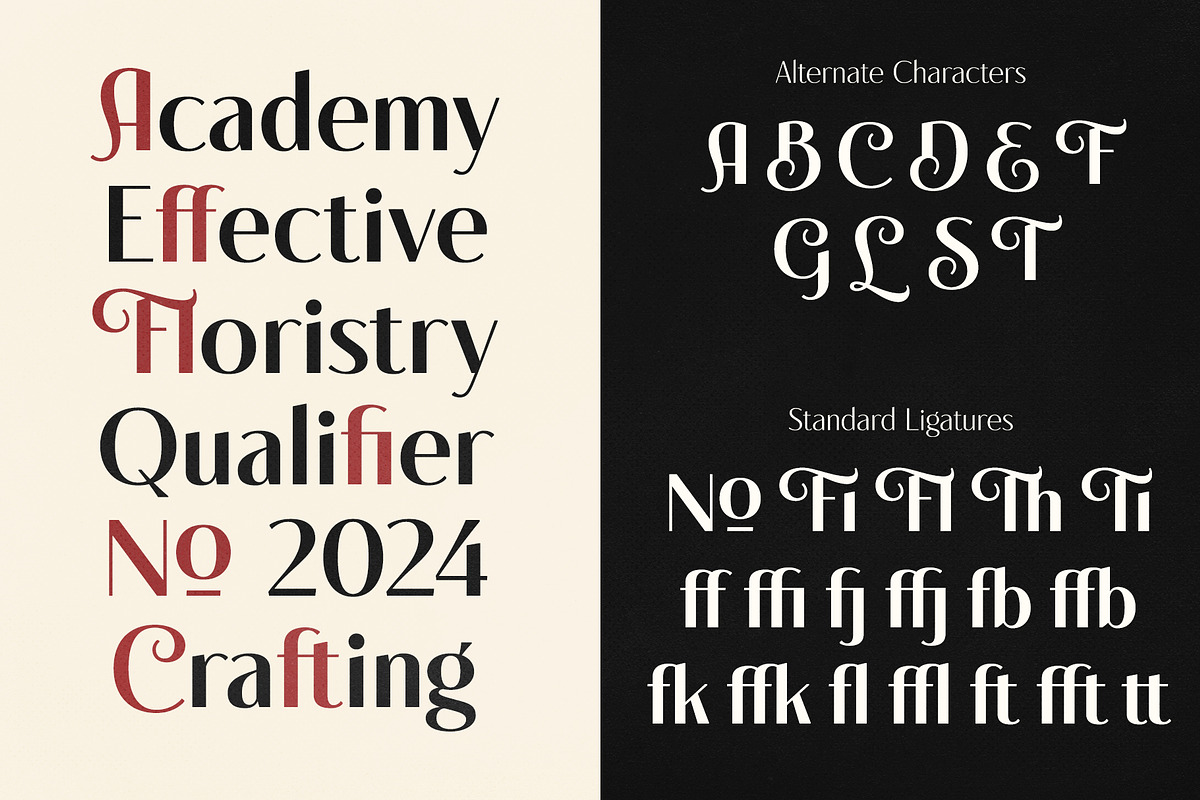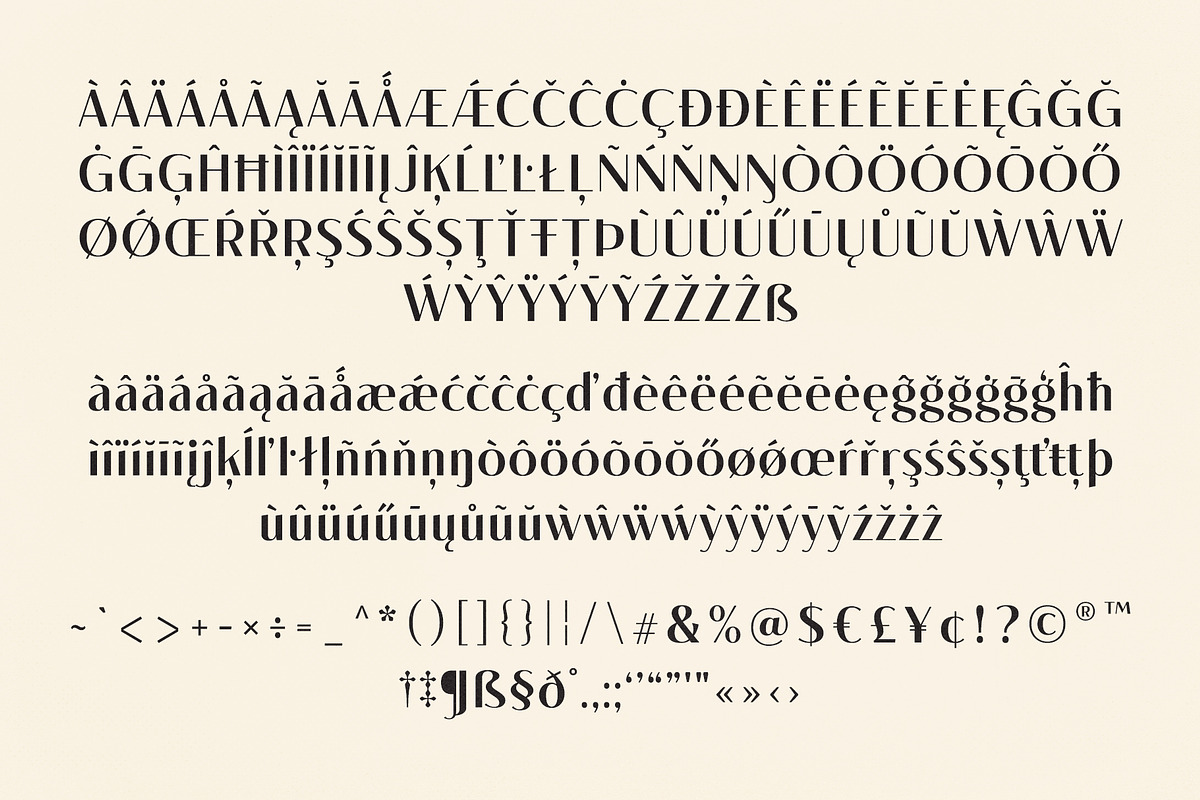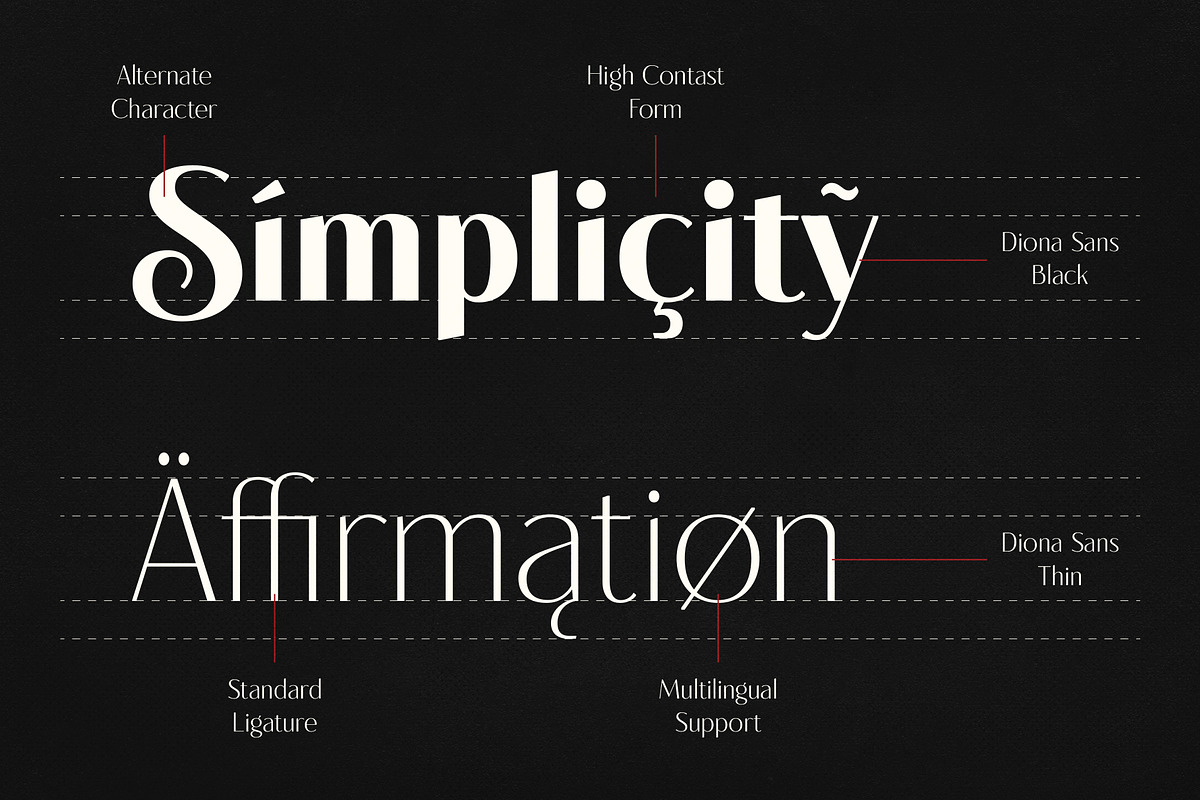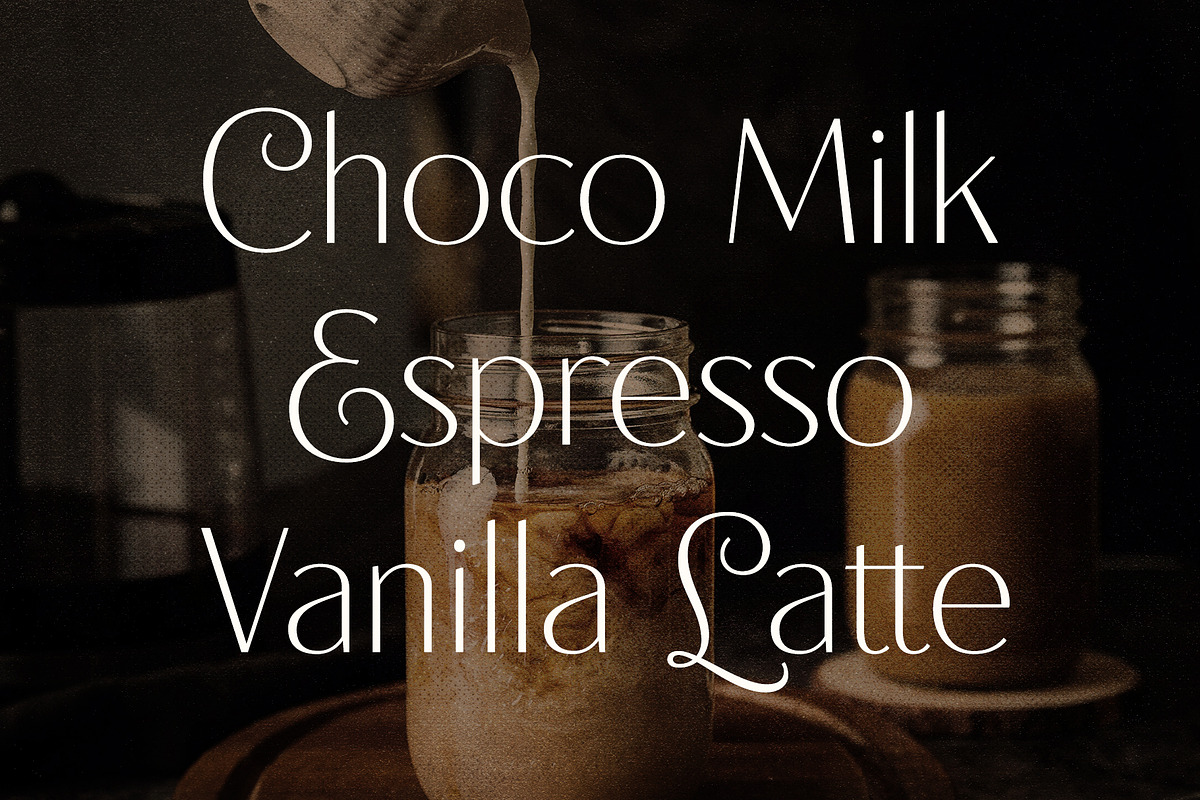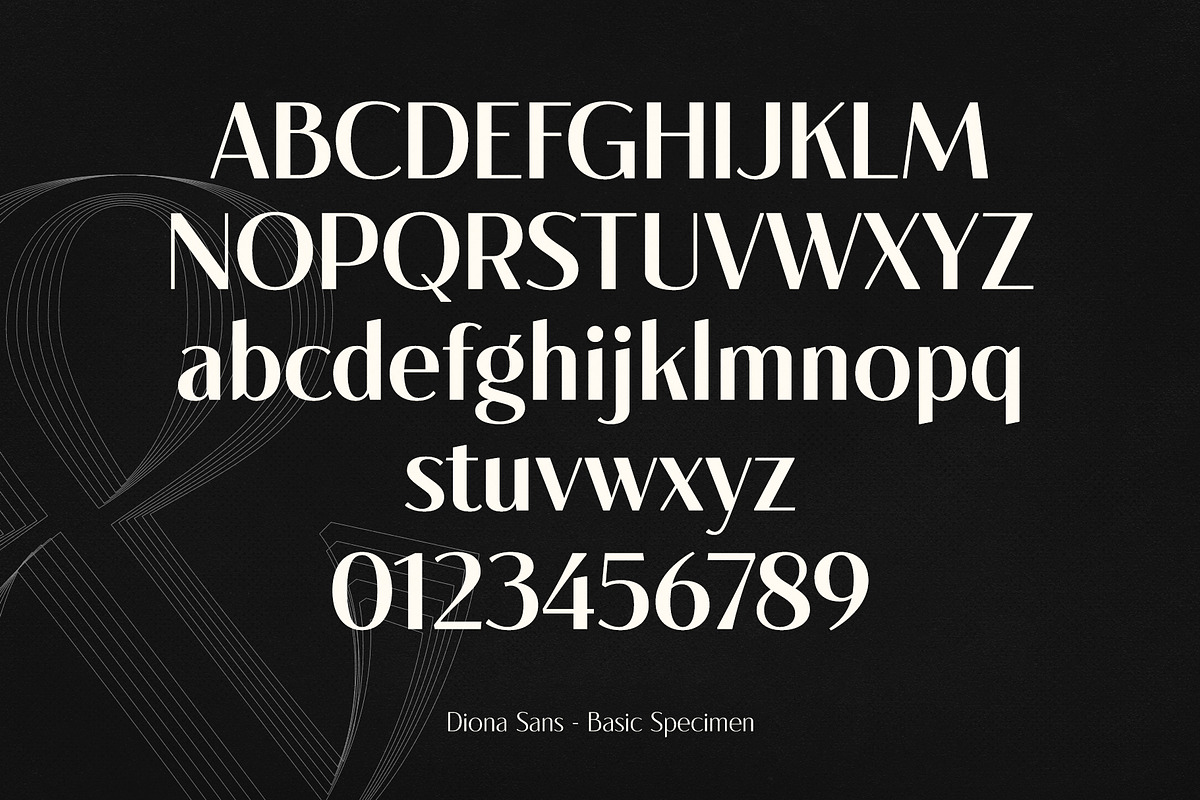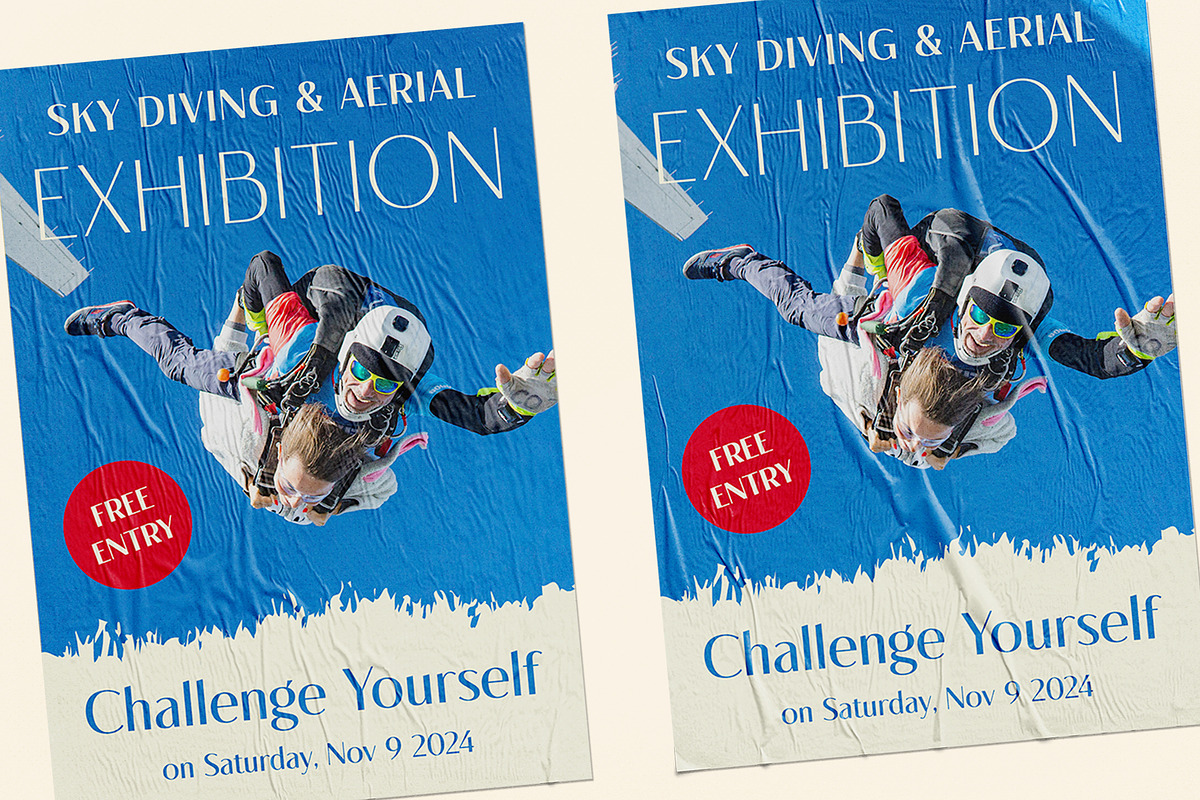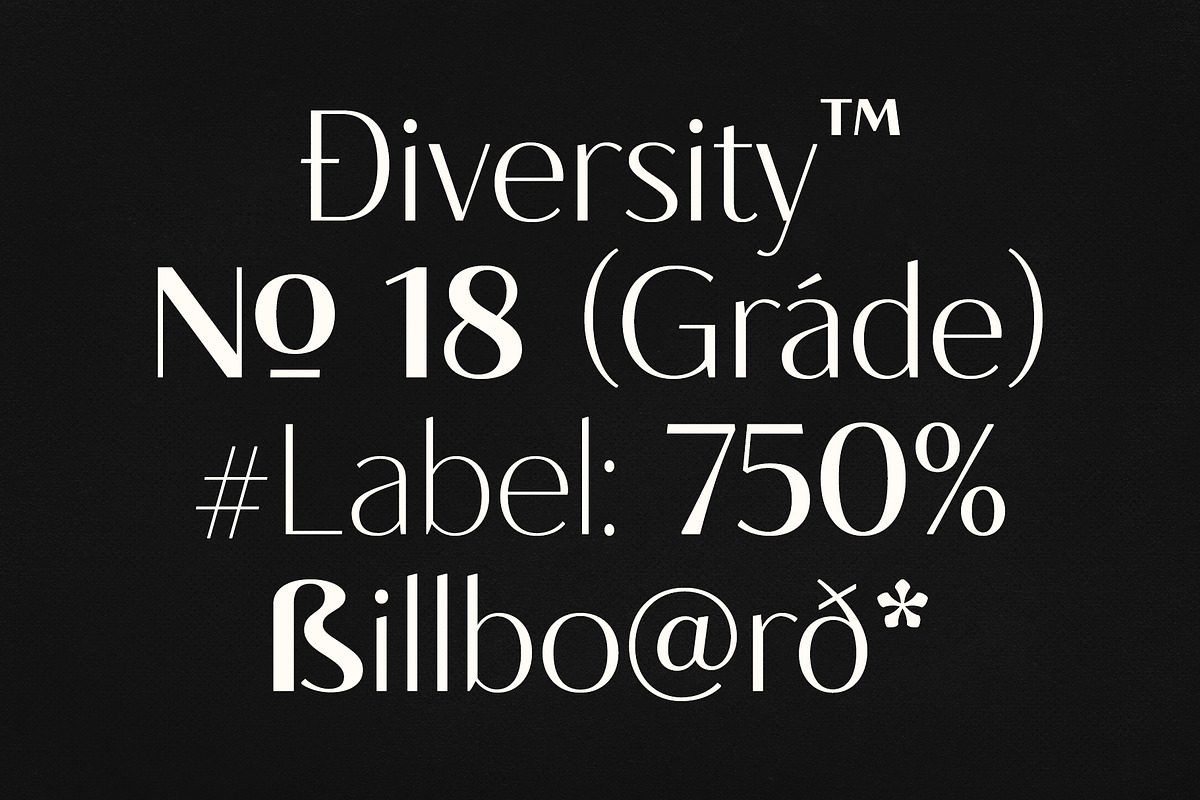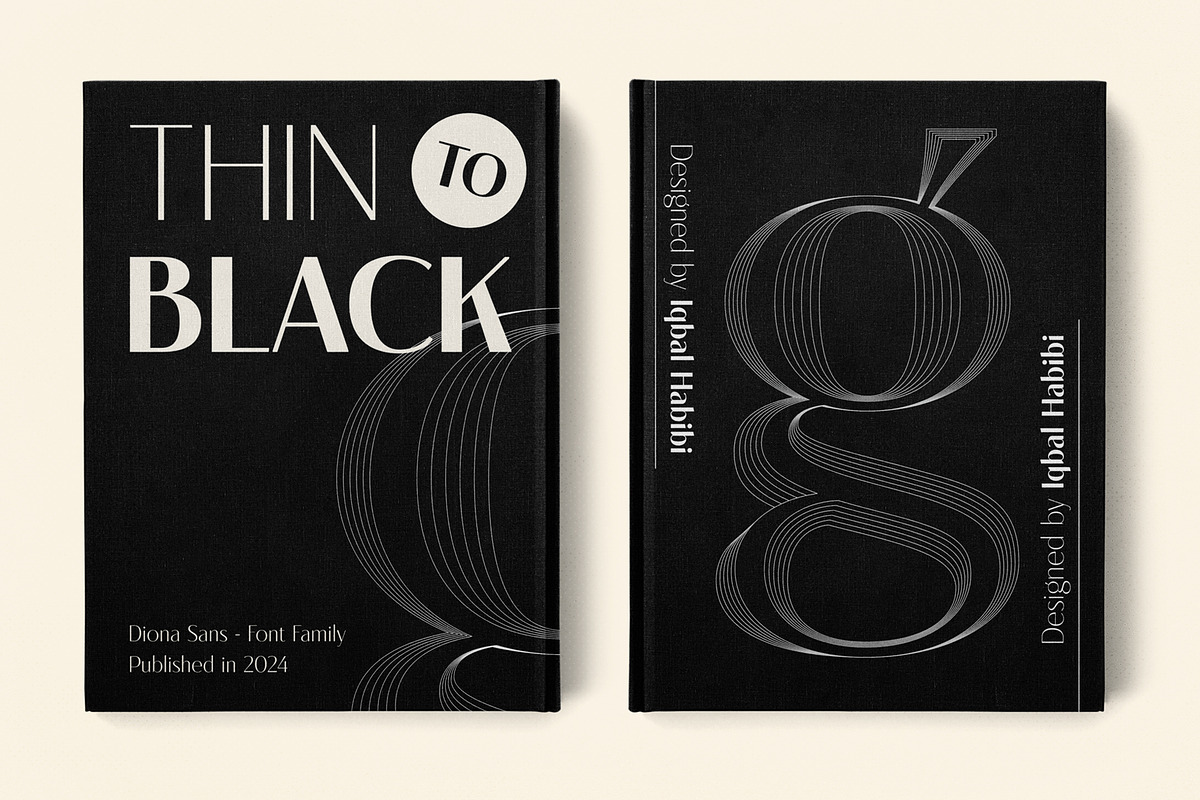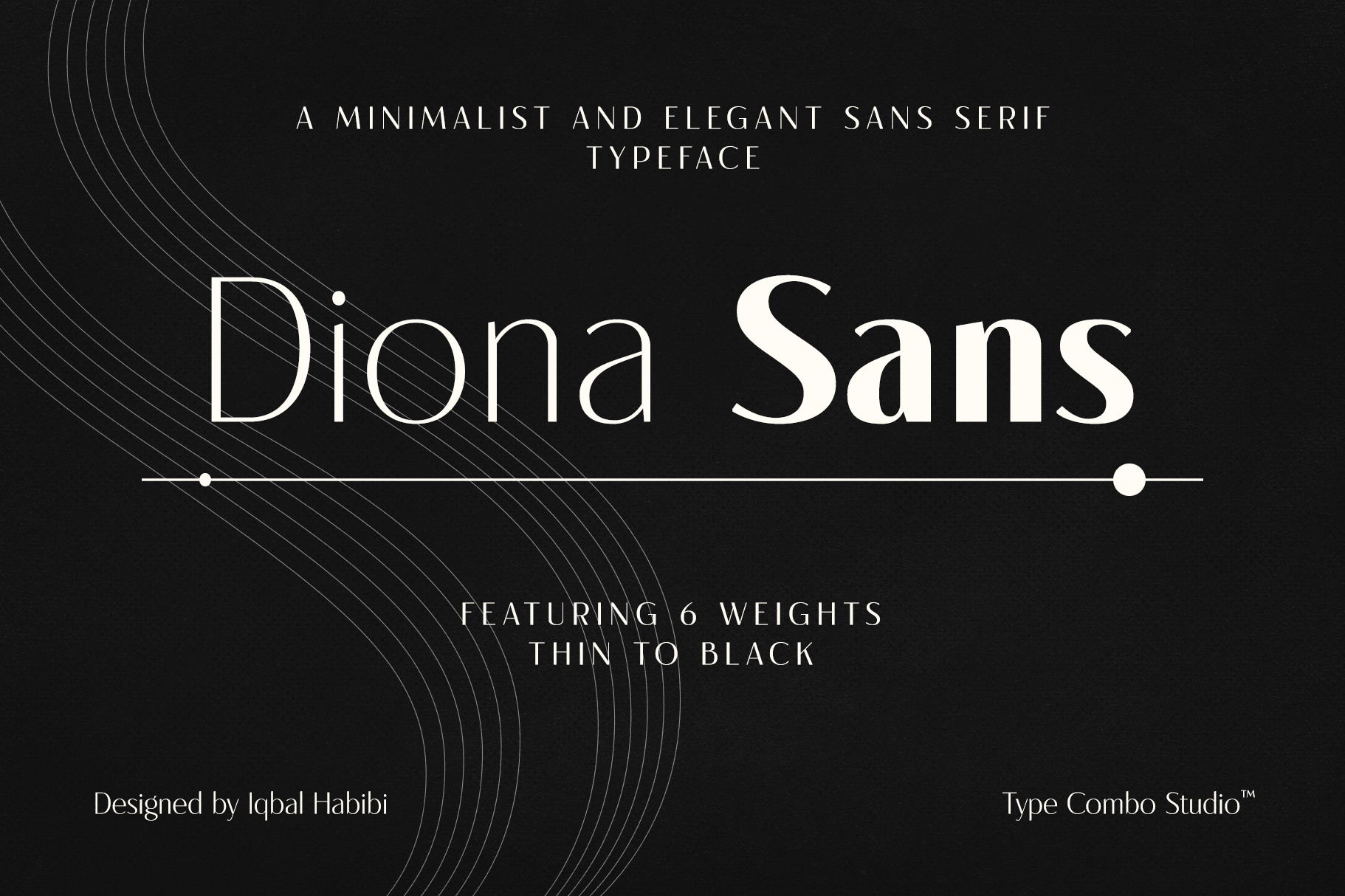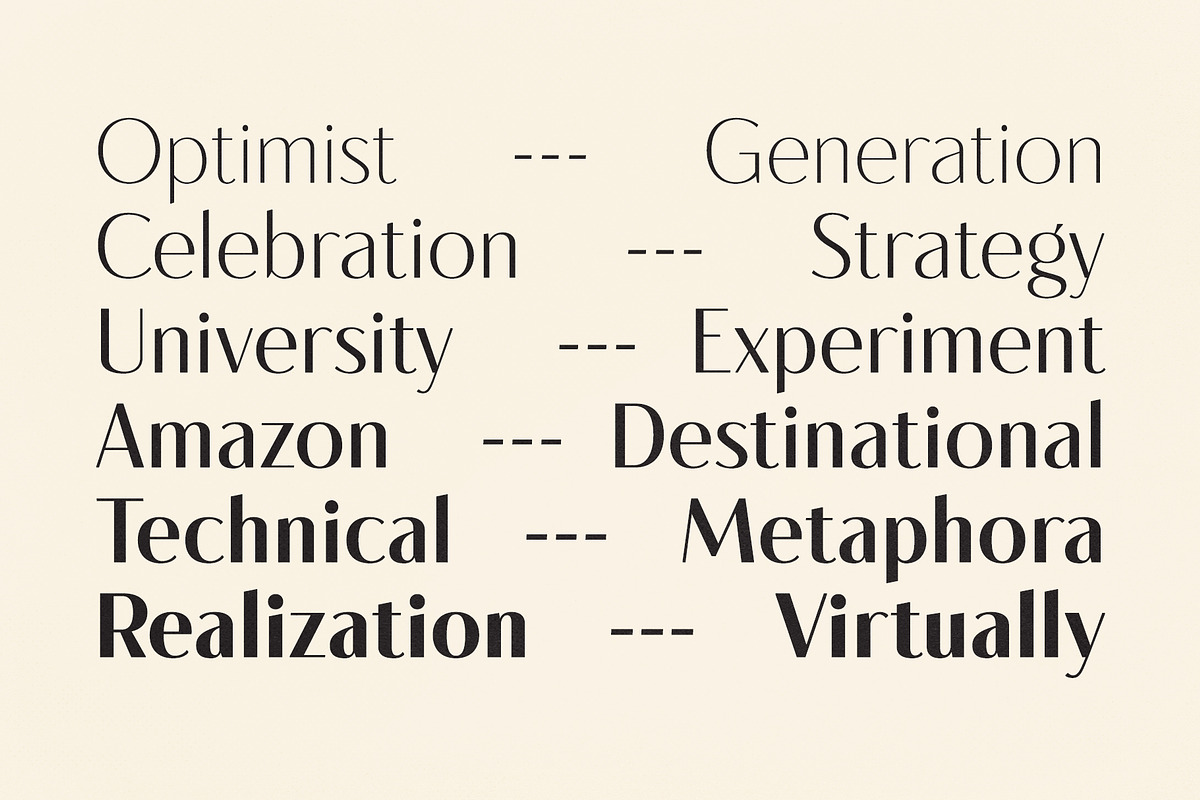
Diona Sans - Font Family
Diona Sans is a clean minimalist sans serif display typeface with elegant alternate characters and standard ligatures. It features 6 weights: thin, light, regular, medium, bold, and black. Its Extended Latin characters support over 75 languages. The high contrast form makes the typeface a perfect choice for large-scale texts such as headlines, logotypes, posters, banners, magazine covers, and any editorial or display applications.